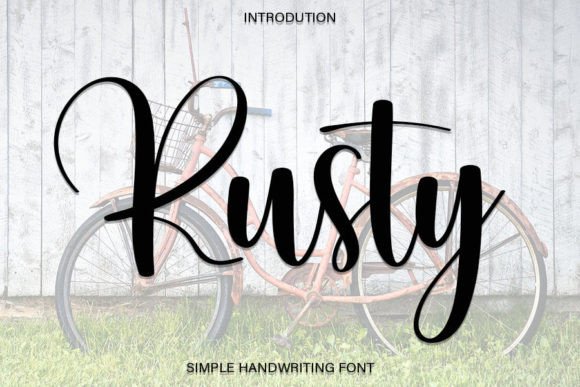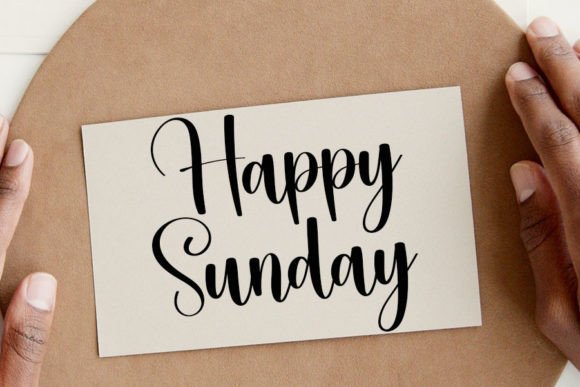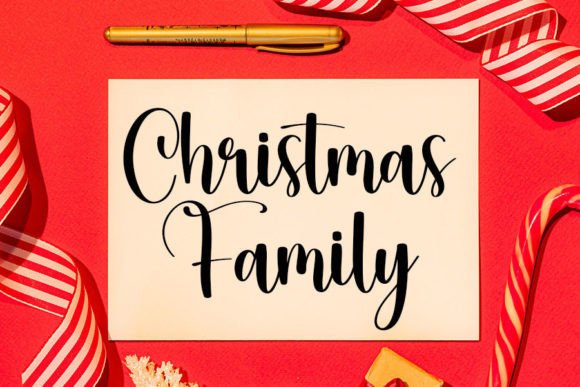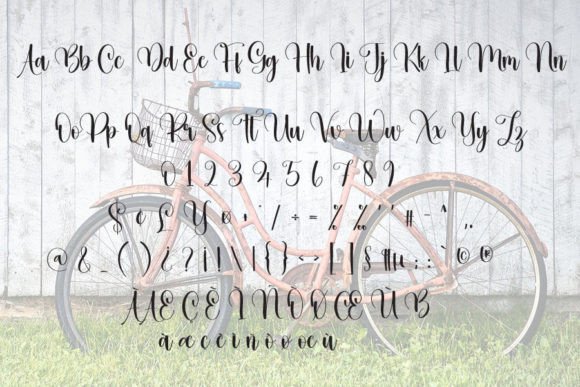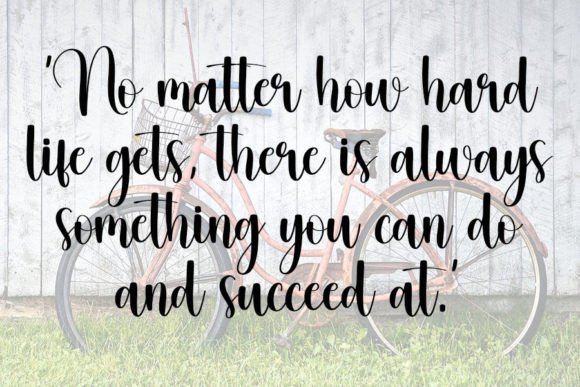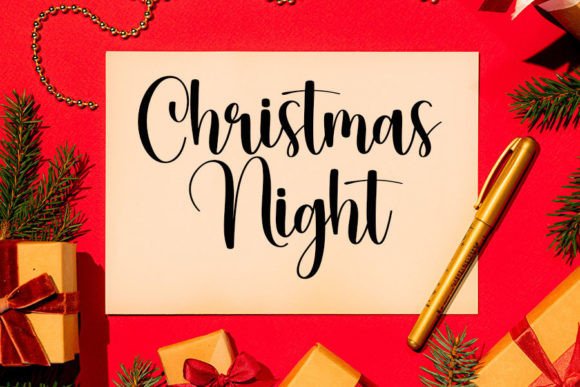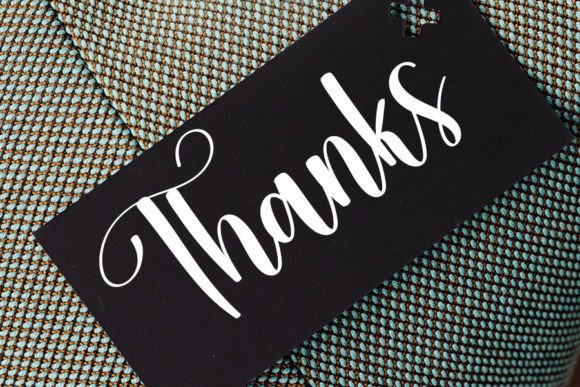
Rusty Font
About Rusty Font
Rusty Font is a delicate handwritten typeface thoughtfully crafted to bring a cool and unique style to your creative projects. With its refined strokes and charming character, Rusty is ideal for personal letters, wedding invitations, product packaging, titles, and more. This font adds an elegant and fresh touch, helping your designs stand out with personality.
Delicate and Unique Design
Rusty features soft, flowing letterforms that balance subtlety with distinctiveness. Its handwritten style adds warmth and creativity while maintaining excellent readability, making it suitable for both casual and formal projects.
Ideal Uses for Rusty Font
Rusty is perfect for:
• Personal letters and notes
• Wedding invitations and event stationery
• Food product packaging and labels
• Titles and headers in print or digital media
• Branding and marketing materials
This versatile font adapts beautifully to various design needs.
Why Choose Rusty Font?
Designers love Rusty for its:
• Delicate and unique handwritten appearance
• Clear readability and elegant flow
• Versatility across multiple creative applications
These qualities make Rusty a practical and stylish font choice.
Add Elegance and Personality to Your Designs
Typography shapes the feel of your project. Rusty adds a delicate, unique personality that enhances your design’s charm and appeal. Whether for invitations, packaging, or branding, this font brings warmth and sophistication.
In conclusion, Rusty Font is a delicate and unique handwritten script perfect for designers seeking elegance and creativity. Add Rusty to your font collection to create memorable and stylish designs.